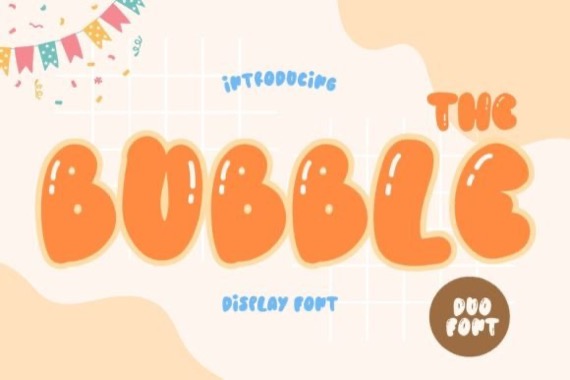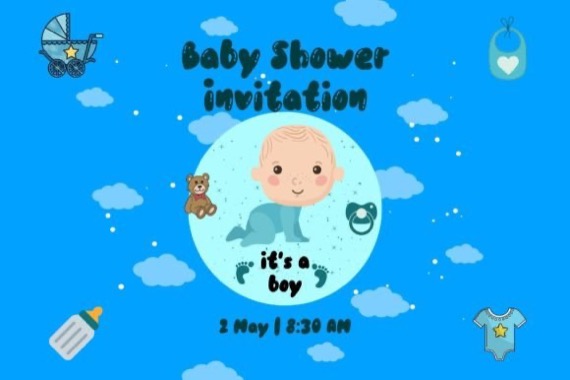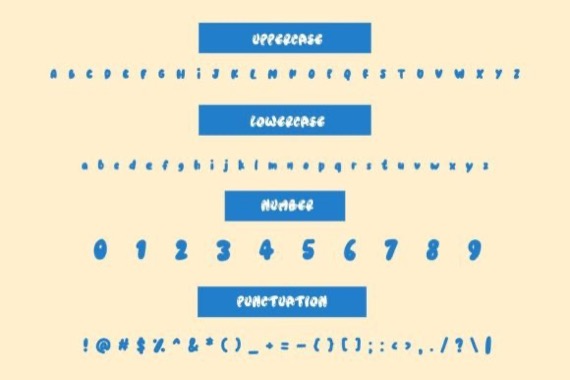
Introducing a versatile and chic decorative typeface from Brown Cupple Typeface, The Bubble is a cool display font. It embodies playfulness and authenticity and is the perfect choice for all your favorite projects such as blog posts, logos, branding, ads, invitations, greeting cards, planners, photo albums, decorations, and much more.
The Bubble Decorative Font